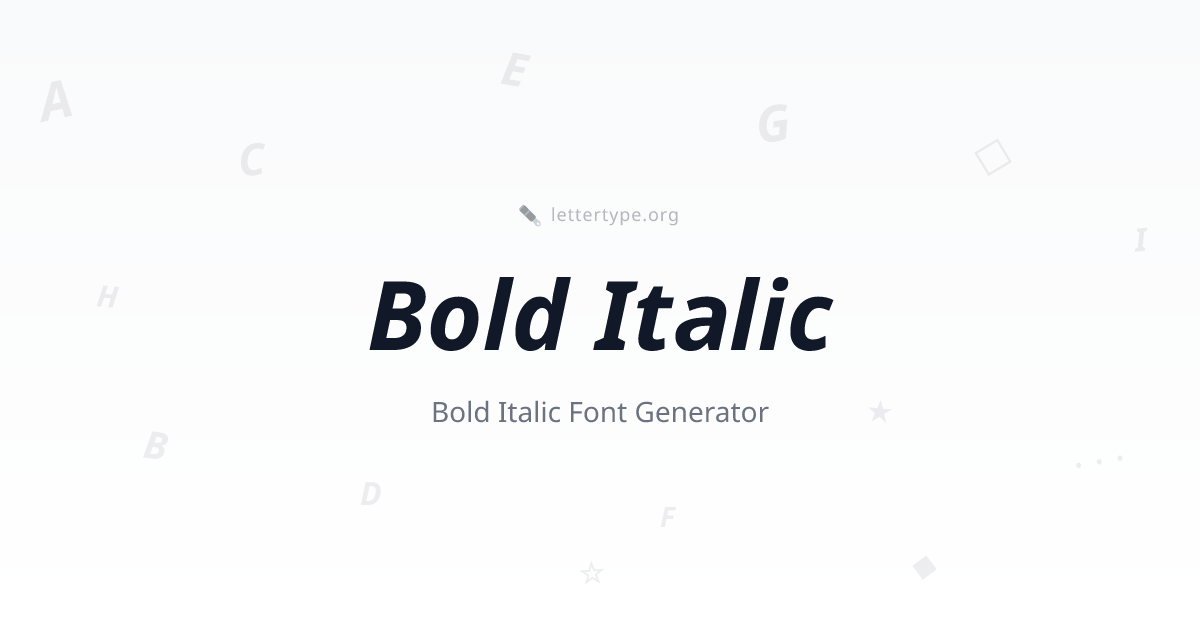
Bold Italic Font Generator
Bold Italic Font Generator — 𝙗𝙤𝙡𝙙 𝙞𝙩𝙖𝙡𝙞𝙘 Unicode Text
Bold italic font combines the slant of italic with the weight of bold — creating a style that's both dynamic and emphatic. It's the typographic equivalent of speaking loudly with conviction. Our generator uses Unicode Mathematical Bold Italic characters that work on every platform, no font needed.
𝙀𝙫𝙚𝙧𝙮𝙩𝙝𝙞𝙣𝙜 𝙮𝙤𝙪 𝙩𝙮𝙥𝙚 𝙗𝙚𝙘𝙤𝙢𝙚𝙨 𝙗𝙤𝙡𝙙 𝙖𝙣𝙙 𝙞𝙩𝙖𝙡𝙞𝙘 𝙞𝙣𝙨𝙩𝙖𝙣𝙩𝙡𝙮.
What Is Bold Italic Unicode Font?
Bold italic Unicode characters come from the Mathematical Bold Italic block (U+1D400–U+1D7FF). Originally standardized for mathematical typesetting — where bold italic letters represent vectors and matrices — these characters became popular for expressive social media text.
Bold Italic Alphabet
Uppercase: 𝘼 𝘽 𝘾 𝘿 𝙀 𝙁 𝙂 𝙃 𝙄 𝙅 𝙆 𝙇 𝙈 𝙉 𝙊 𝙋 𝙌 𝙍 𝙎 𝙏 𝙐 𝙑 𝙒 𝙓 𝙔 𝙕
Lowercase: 𝙖 𝙗 𝙘 𝙙 𝙚 𝙛 𝙜 𝙝 𝙞 𝙟 𝙠 𝙡 𝙢 𝙣 𝙤 𝙥 𝙦 𝙧 𝙨 𝙩 𝙪 𝙫 𝙬 𝙭 𝙮 𝙯
Where to Use Bold Italic Text
Instagram bios and captions — when regular bold isn't enough, bold italic adds energy and direction to your text.
Twitter threads — emphasize key points in long-form content with bold italic for maximum visual impact.
Discord server announcements — Unicode bold italic persists even in contexts where Markdown formatting strips out.
Sports, gaming, and motivation content — the dynamic angle of italic combined with bold weight matches high-energy content perfectly.
Headlines and quotes — bold italic mimics the typographic style of editorial magazines and newspaper pull quotes.
Comparing Italic Styles
StyleExampleBest For
Italic𝘪𝘵𝘢𝘭𝘪𝘤Subtle emphasis, quotes
Bold𝗯𝗼𝗹𝗱Strong statements
Bold Italic𝙗𝙤𝙡𝙙 𝙞𝙩𝙖𝙡𝙞𝙘Maximum impact, energy
Bold Italic Font — FAQ
Does bold italic work on Instagram?
Yes. Unicode bold italic characters work in Instagram bios, display names, and captions. They render identically on iOS and Android because they're standard Unicode, not a font file.
Do bold italic characters count as more characters?
No. Each bold italic character is a single Unicode code point — the same count as a regular letter. 𝙖 and a are both one character. No hidden penalty on Instagram, Twitter, Discord, or TikTok.
Why does bold italic look different on some devices?
Unicode characters render through your device's system font. On iOS, Android, and Windows the same character may appear slightly different in weight and shape. The character itself is identical — only the rendering varies by OS.
Can I use bold italic on LinkedIn?
Yes. LinkedIn bios and posts support Unicode, including bold italic characters. This is why some LinkedIn profiles use styled text in headlines — it's Unicode, not HTML formatting.
Is bold italic the same as HTML bold italic?
No. HTML <b><i> tags only apply in browsers and are stripped when copied. Unicode bold italic characters are plain text that carry their style everywhere — copy-paste into SMS, Discord DMs, or any plain text field.